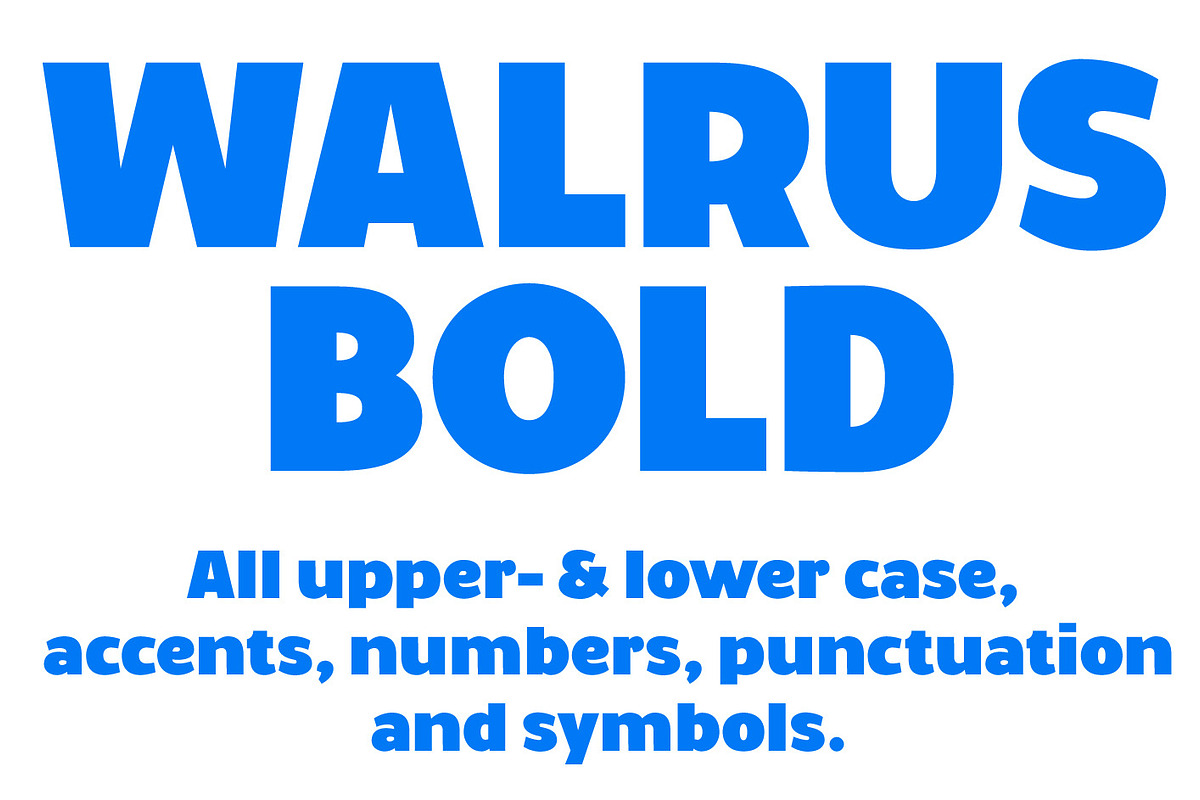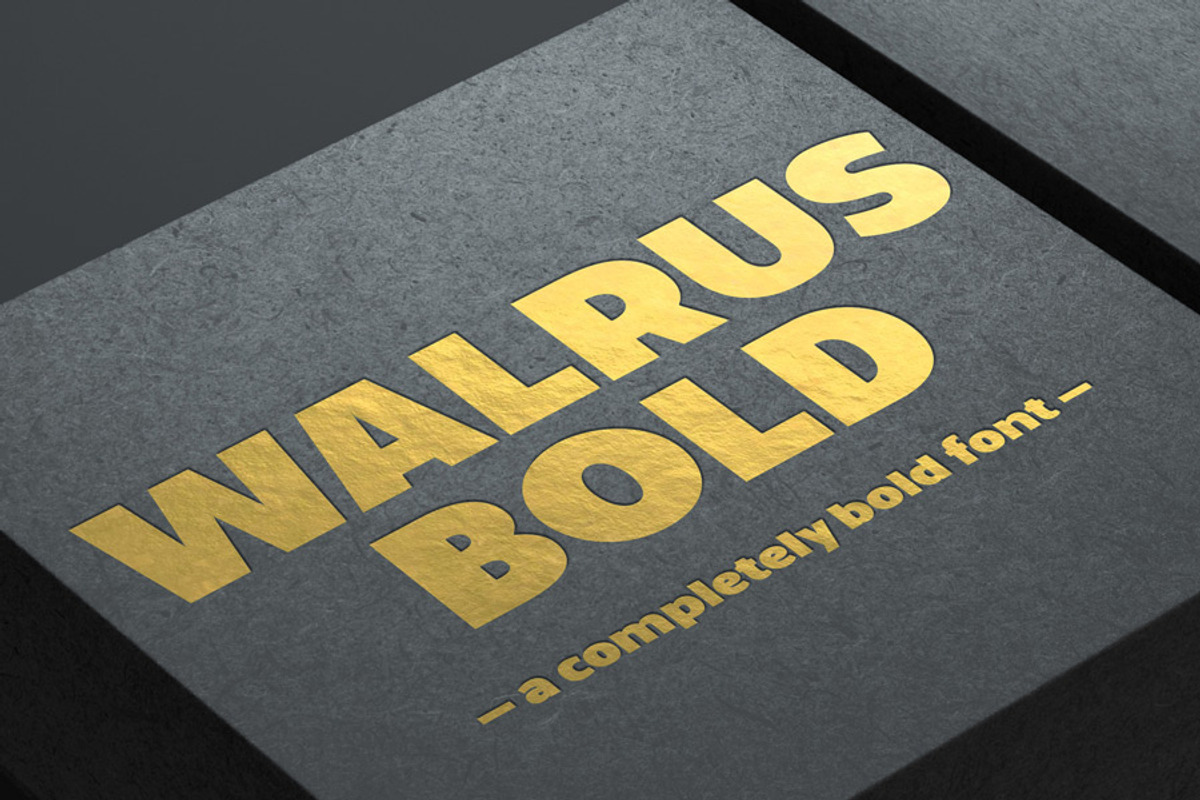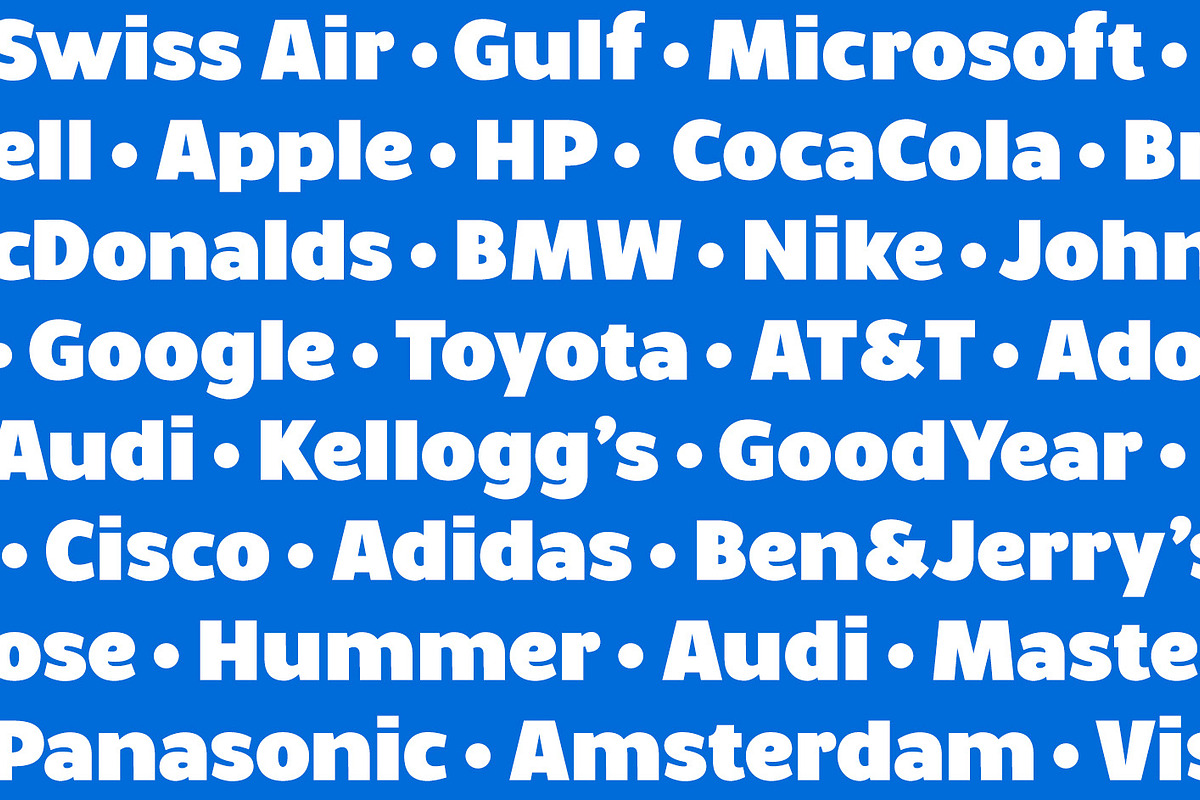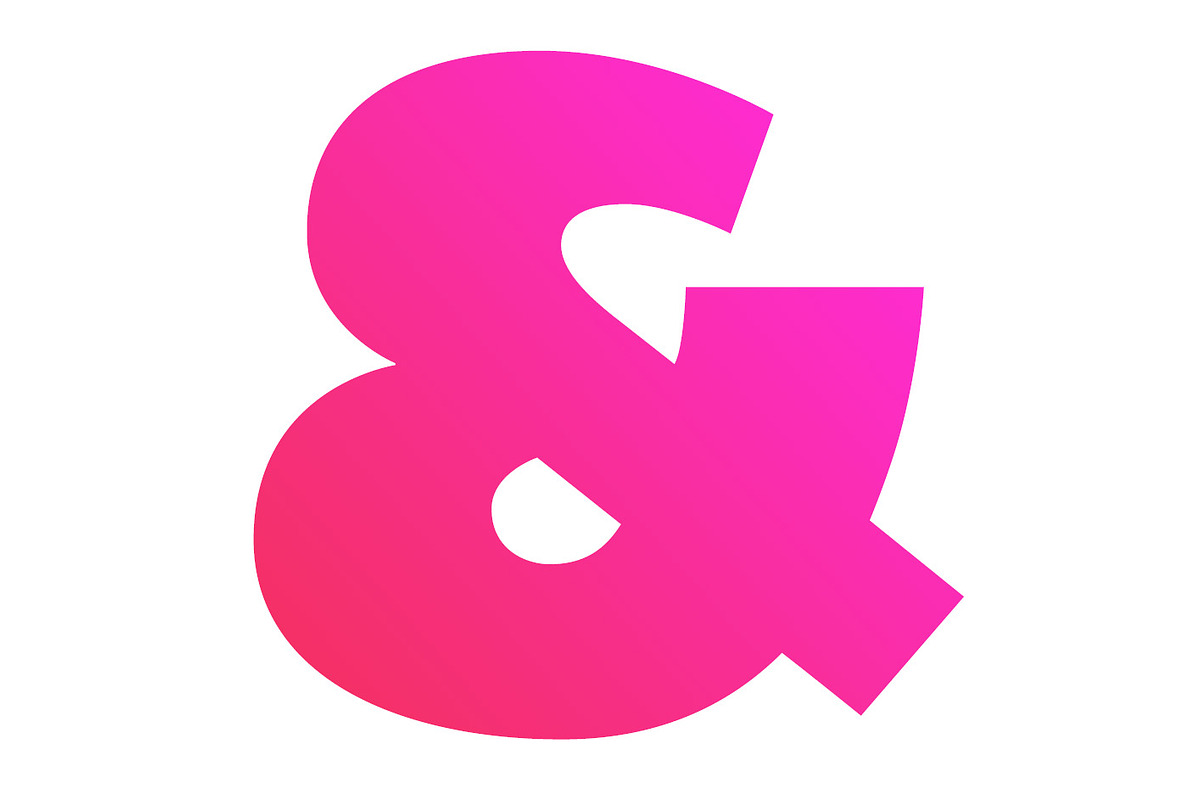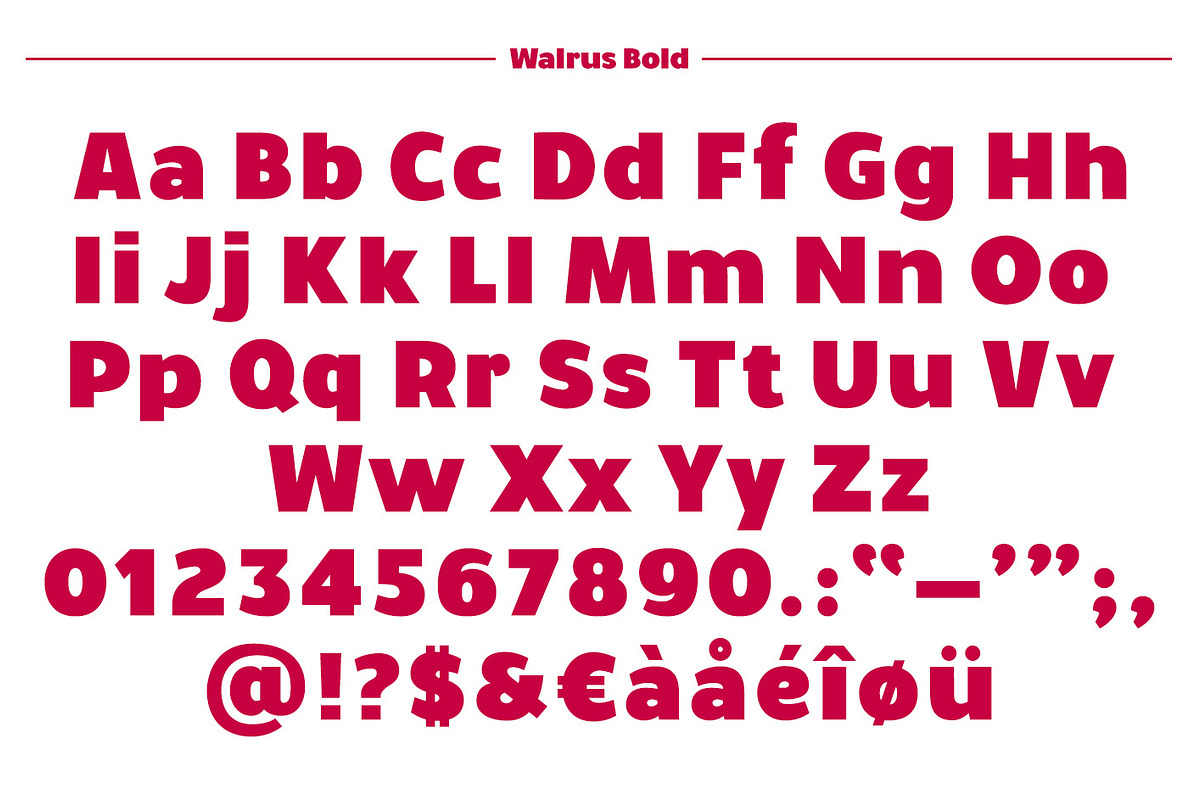
Walrus Bold font (OpenType version)
Walrus Bold font (OpenType version) by Studio Dot by dot is a font selected for branding, posters, packaging, typography.
Walrus Bold font (OpenType version) by Studio Dot by dot fits naturally into Branding, posters, packaging, typography.